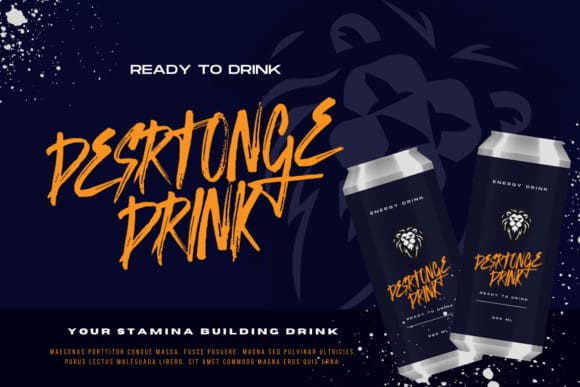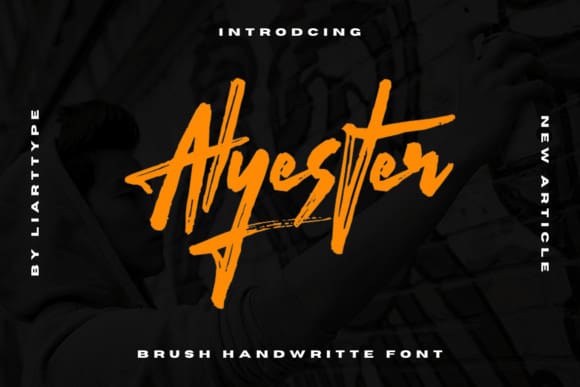
Alyester Brush Font
Alyester Brush Font is a handwritten brush script font that looks and feels like it was written on a marker board. Perfect for greeting cards, invitations, and motivational quotes, this font should help you express all of your best messages!